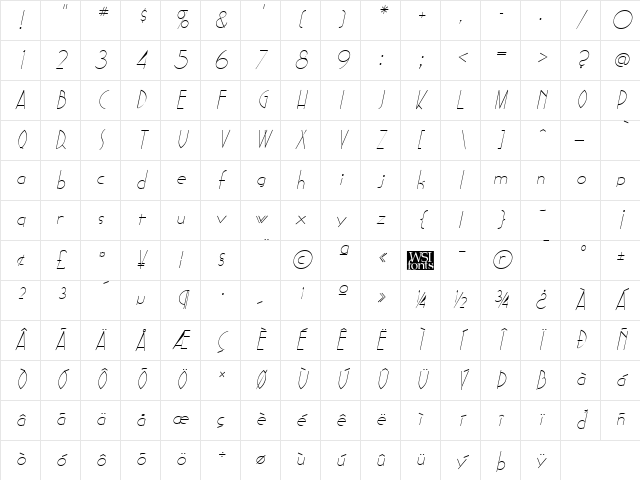
Sadelle Italic
Sadelle Family
Complete Sadelle Italic glyph index. Displaying only characters natively supported by Sadelle Italic font.
Design Context for Sadelle
Sadelle is a composed and adaptable typeface that performs quietly and consistently across a wide range of design contexts. The slanted form adds forward momentum and visual energy.
Pro Tip: Use Sadelle for emphasis, pull quotes, and subheadings where its slanted energy can add rhythm to the layout.